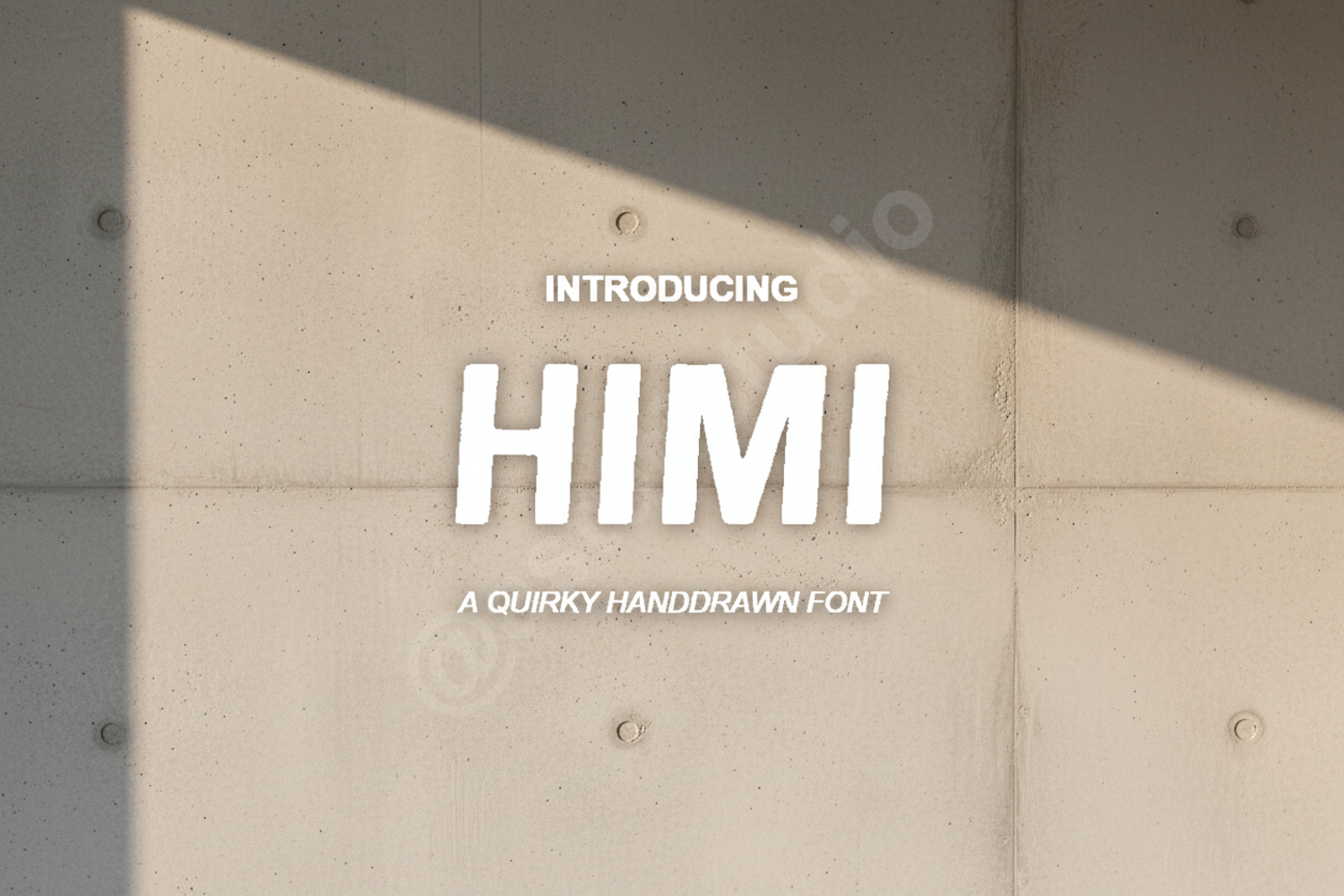
Himi - Minimalist Modern Sans Serif Typeface
Himi
Elevate your design projects with Himi, a premium minimalist sans-serif font that blends modern sophistication with timeless clarity. Designed with precision, Himi features clean lines and perfectly balanced proportions, making it an essential addition to any creative professional's toolkit. Whether you are aiming for a high-end luxury feel or a sleek contemporary look, Himi provides the versatility needed to make your typography stand out.
- Comprehensive Multilingual Support
- Standard Ligatures and Alternates
- Branding and Visual Identity: Create memorable logos and cohesive brand systems.
- Wedding Stationery: Perfect for elegant invitations, menus, and place cards.
- Editorial Design: Ideal for magazine headers, body text, and book covers.
- Digital Marketing: Enhance social media graphics, website banners, and advertisements.
- Product Packaging: Add a touch of modern luxury to labels and boxes.